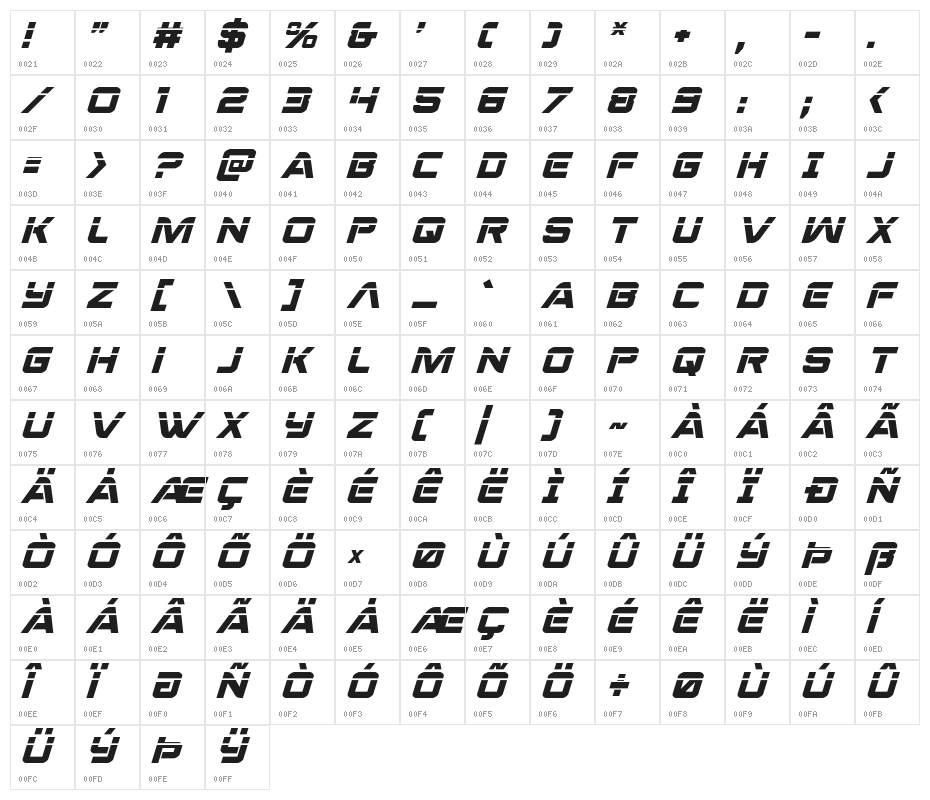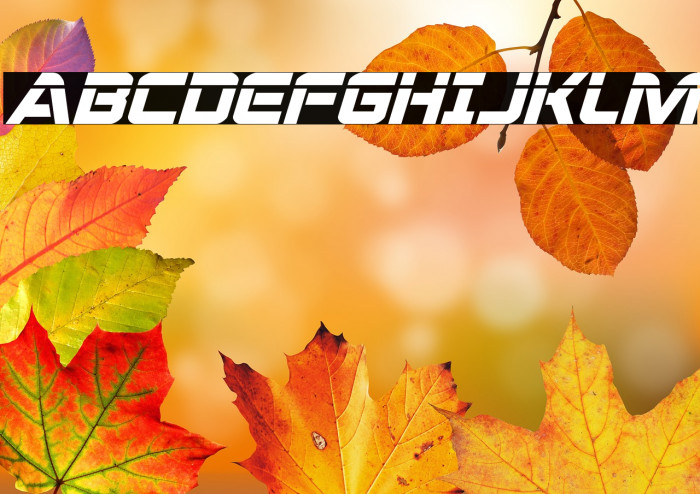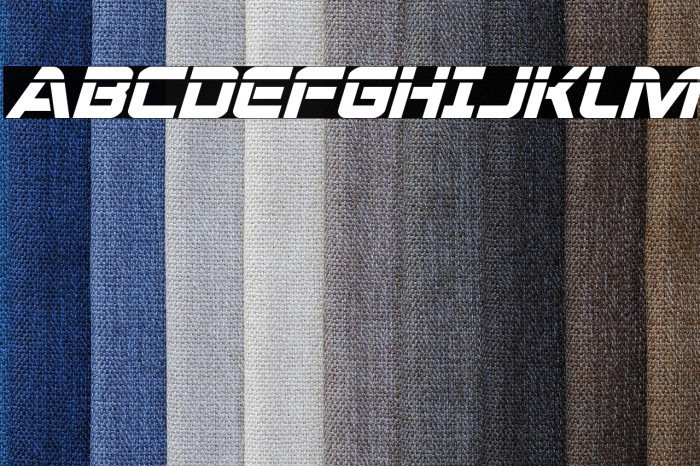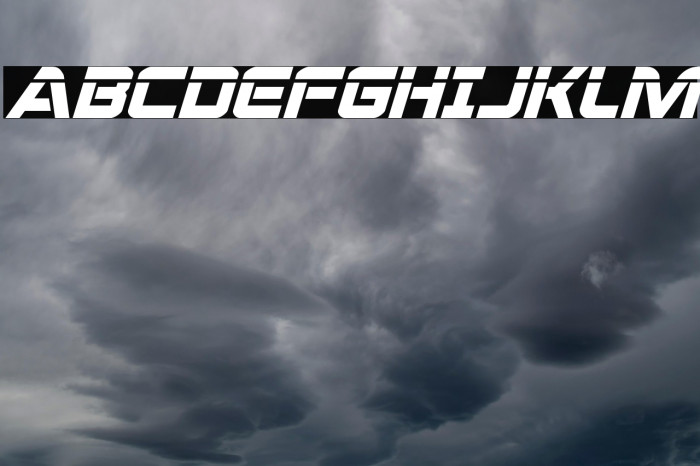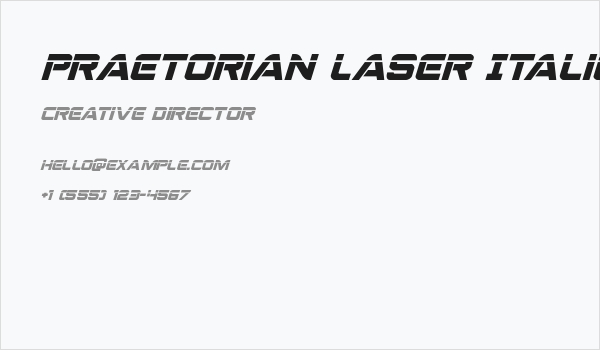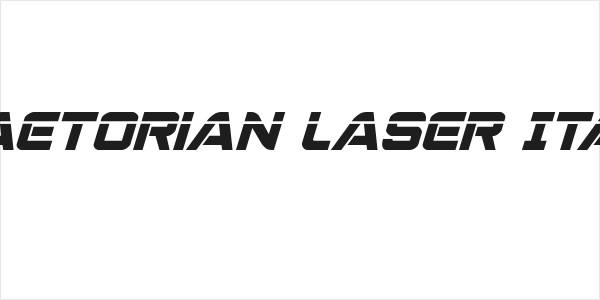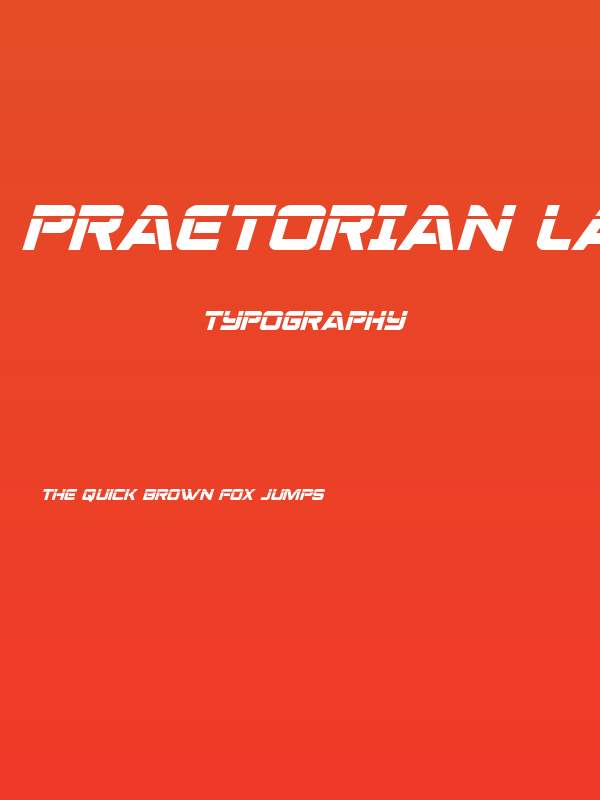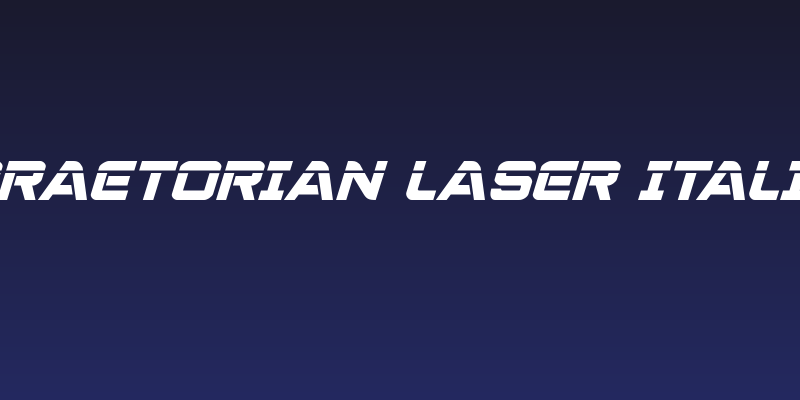
Praetorian Laser Italic Font
Praetorian Laser Italic Description
This font features a bold and futuristic design with a strong emphasis on angular shapes and sharp edges. The characters are slanted, giving it an italicized appearance, and the strokes are thick, providing a sense of strength and stability. The geometric style is consistent throughout, with each letter maintaining a uniform width and height, creating a cohesive and structured look. The font's design is reminiscent of sci-fi and tech themes, making it ideal for projects that require a modern and edgy aesthetic. The numbers and special characters follow the same design principles, ensuring versatility across different types of content.
| Proposed Projects | Ideal for technology branding, sci-fi movie posters, video game titles, and futuristic-themed designs. |